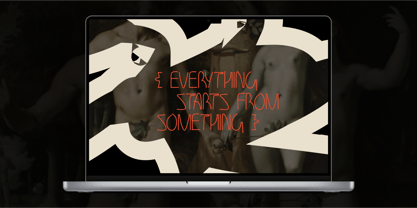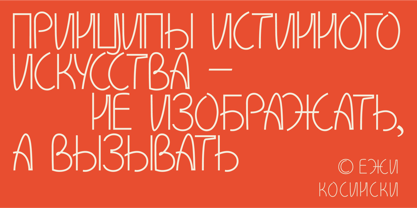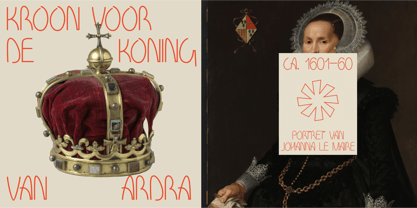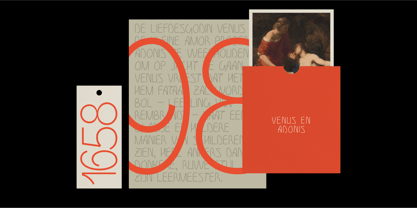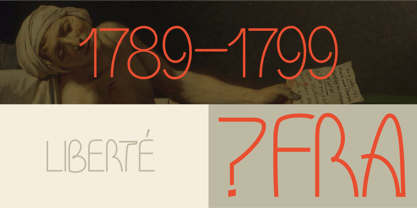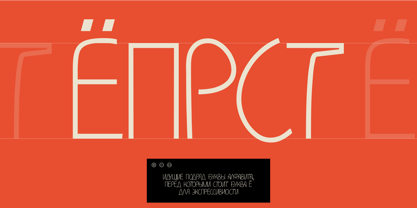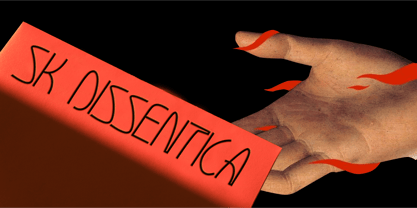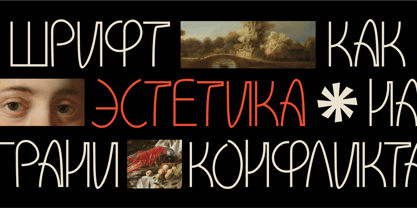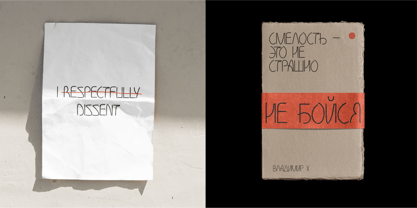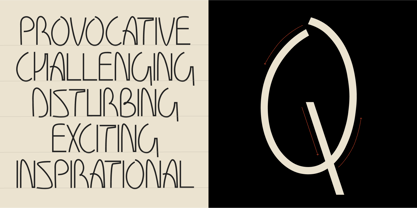
SK Dissentica
The SK Dissentica Font Family was designed by Tikhon Reztcov and published by Shriftovik. SK Dissentica contains 1 styles. More about this family
SK Dissentica is a delicate decorative font with a sophisticated and romantic style. This multilingual typeface explores the concept of conflict through contrasting symbols and the juxtaposition of geometric shapes and handwritten elements. It supports extended Latin and Cyrillic characters and is perfect for poster accents and adding flair and boldness to any project.